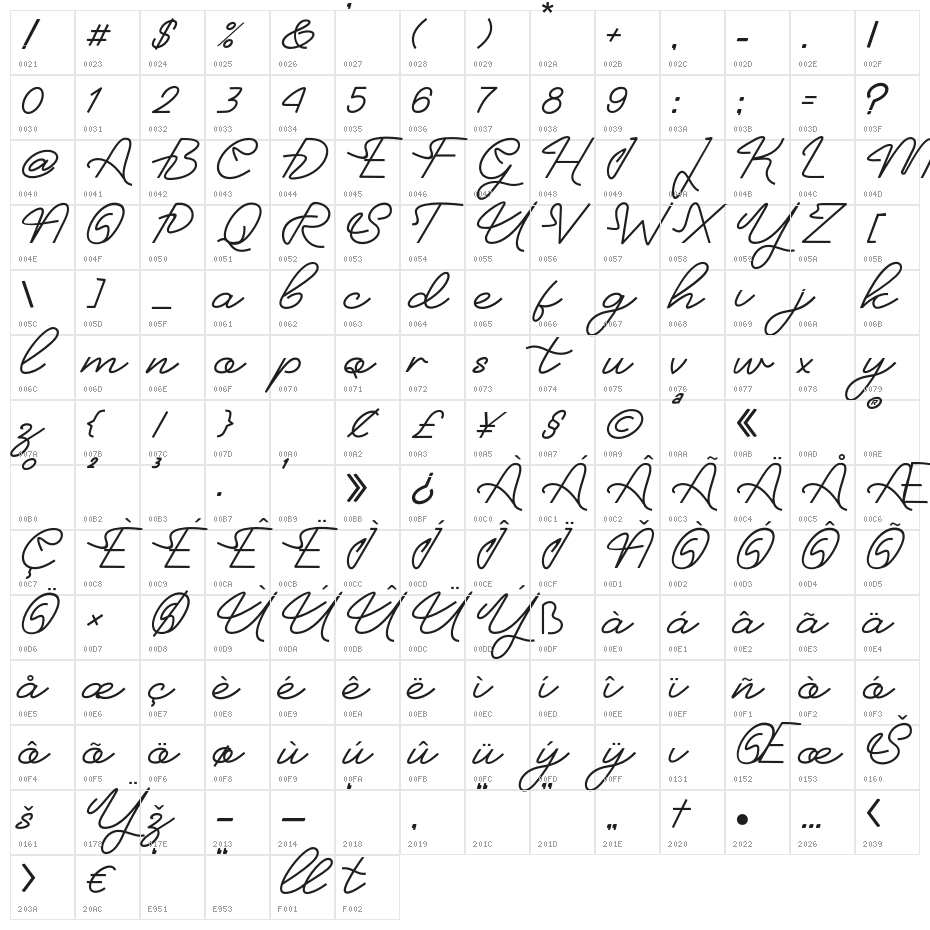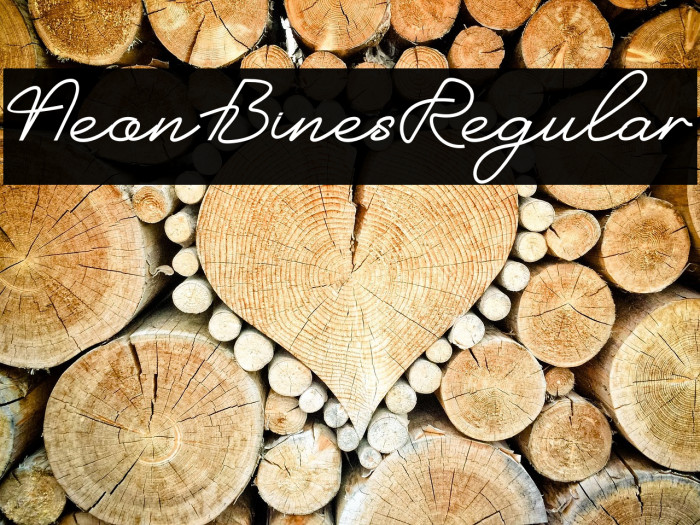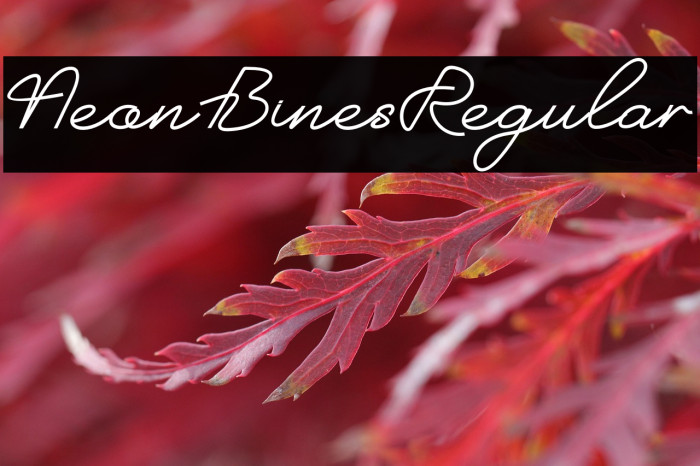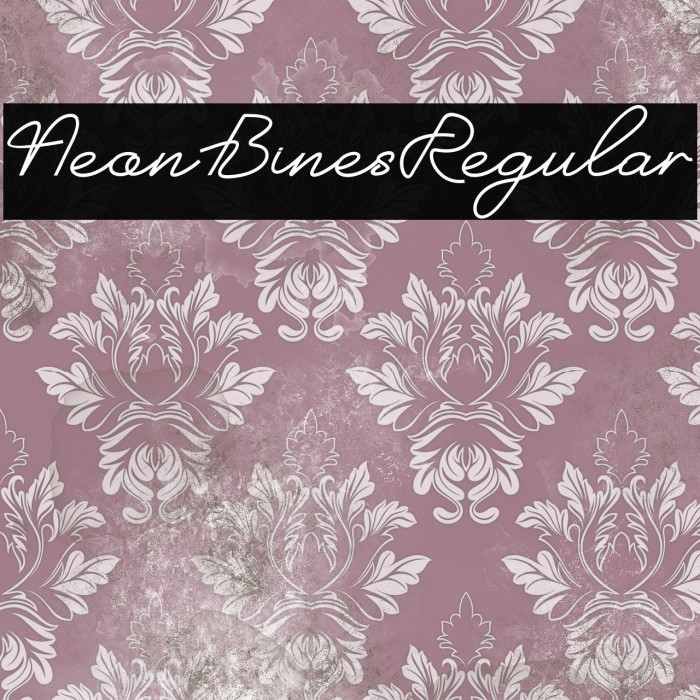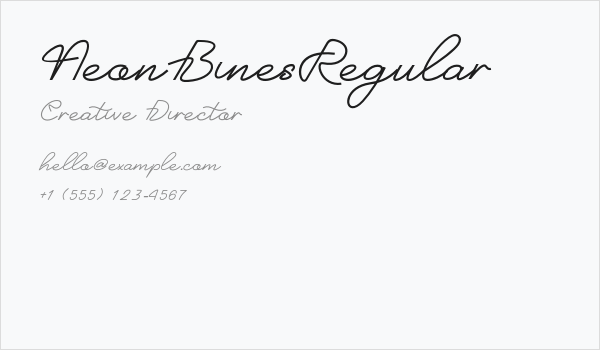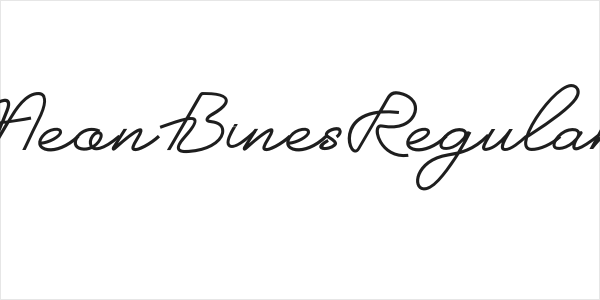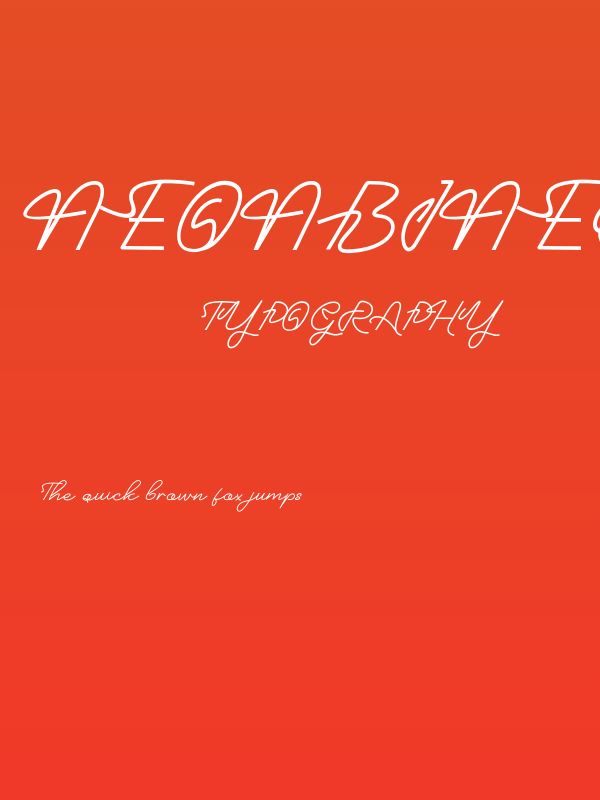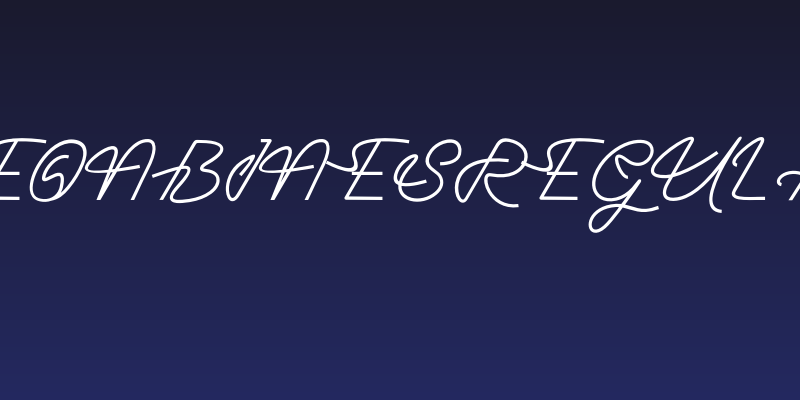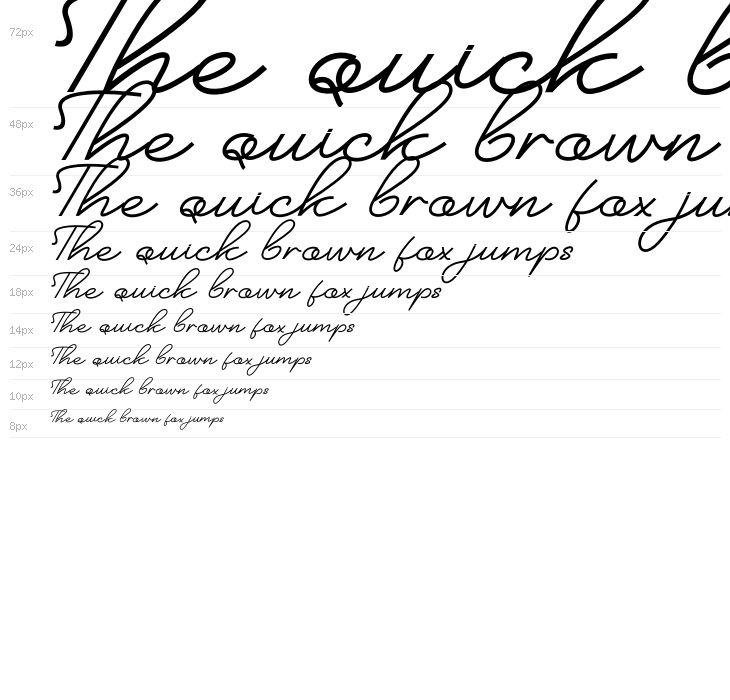
NeonBinesRegular Font
NeonBinesRegular Description
This font features a flowing, cursive style that mimics elegant handwriting. The letters are connected, creating a seamless and fluid appearance. The uppercase letters are slightly more ornate, with subtle flourishes that add a touch of sophistication. The lowercase letters maintain a consistent baseline, enhancing readability while preserving the script's graceful nature. Numbers and special characters are designed to complement the overall aesthetic, ensuring a cohesive look across all text elements. The font's delicate strokes and smooth curves make it ideal for projects that require a personal or artistic touch.